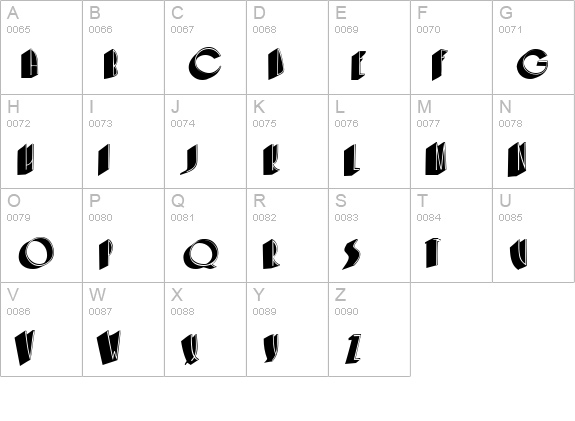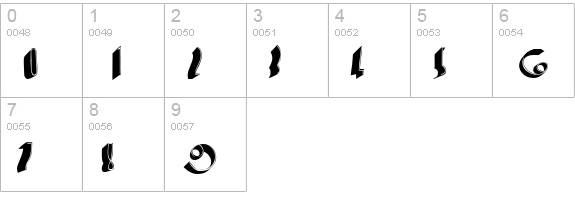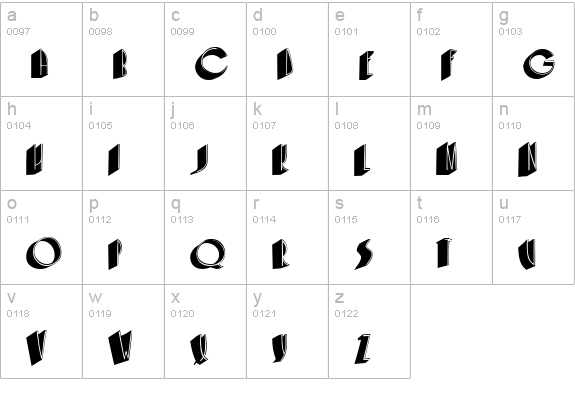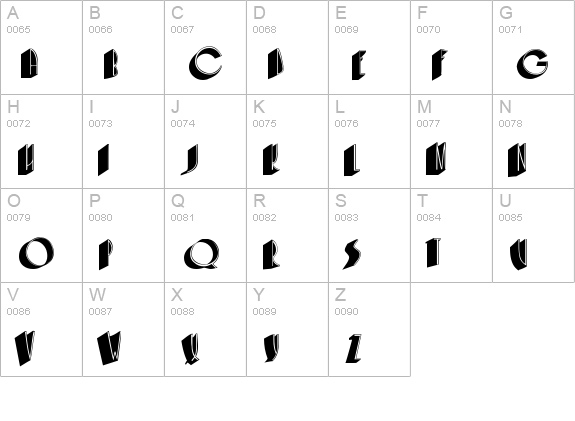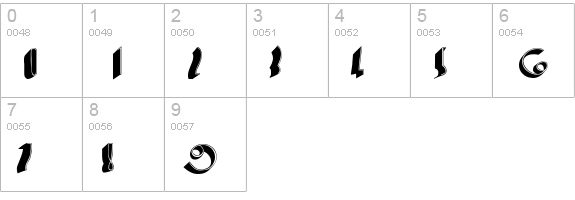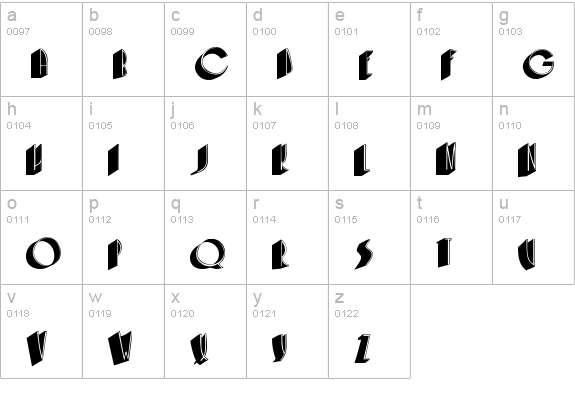
CafeNoirShadow Font Details
CafeNoirShadow is a stunningly elegant font that exudes a sense of mystery and sophistication. Its sleek and slender letterforms are delicately adorned with a subtle shadow effect, adding depth and dimension to each character. This font is perfect for projects that demand a touch of allure and intrigue. With its timeless appeal, CafeNoirShadow captures the essence of a classic cafe ambiance, transporting you to a world of refined taste and refined conversations. Whether it's for a menu design, a logo, or a special event invitation, this font will effortlessly elevate any project to new levels of elegance. The best part? CafeNoirShadow is available for free! Yes, you read that right. This remarkable font can be freely downloaded from FontsMarket.com, allowing you to unleash your creativity without any cost constraints. Now you can create breathtaking designs without breaking the bank. So why wait? Discover the captivating beauty of CafeNoirShadow and let your designs speak volumes. Download this exceptional font today from FontsMarket.com and embark on a journey of endless possibilities.